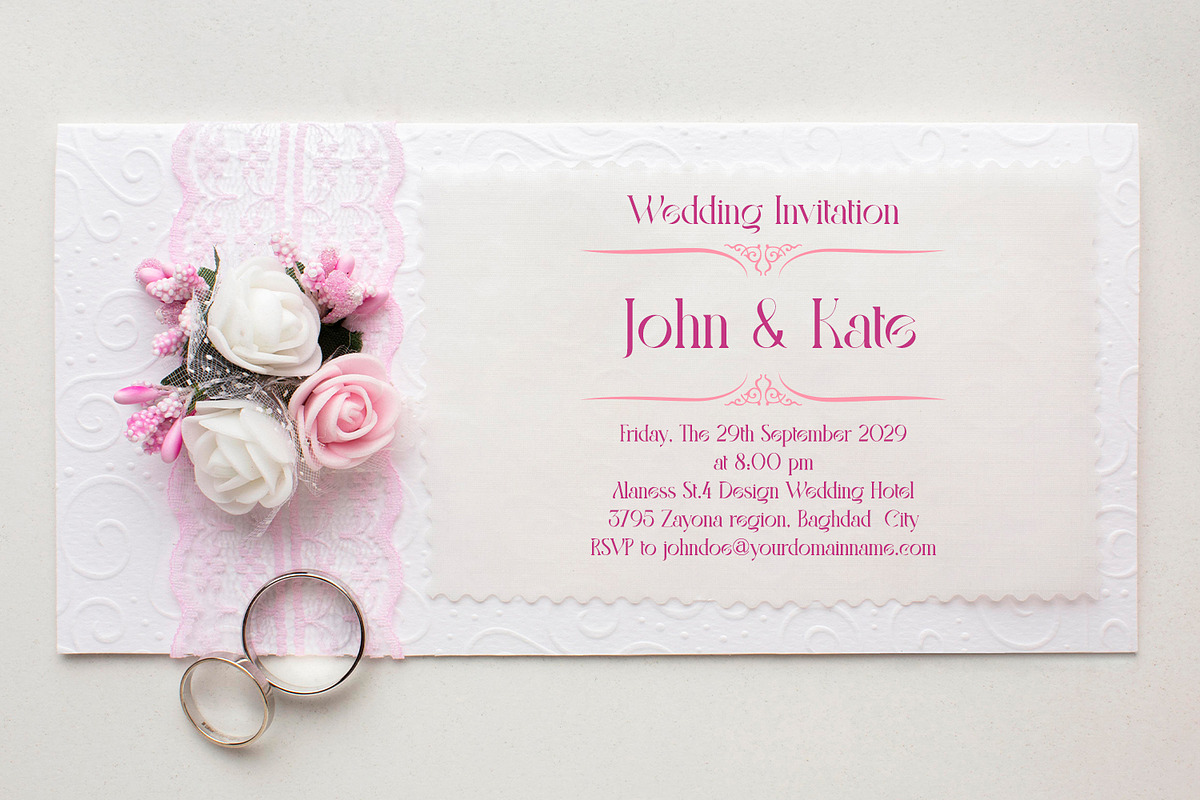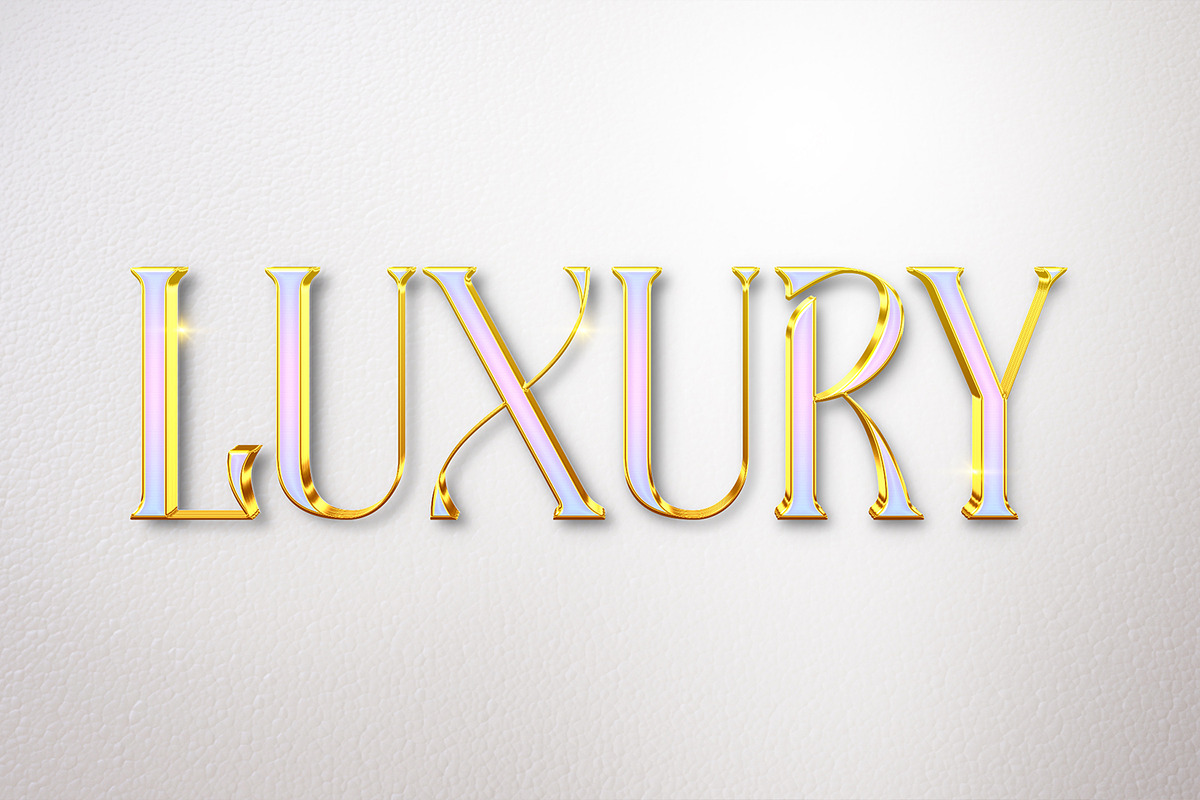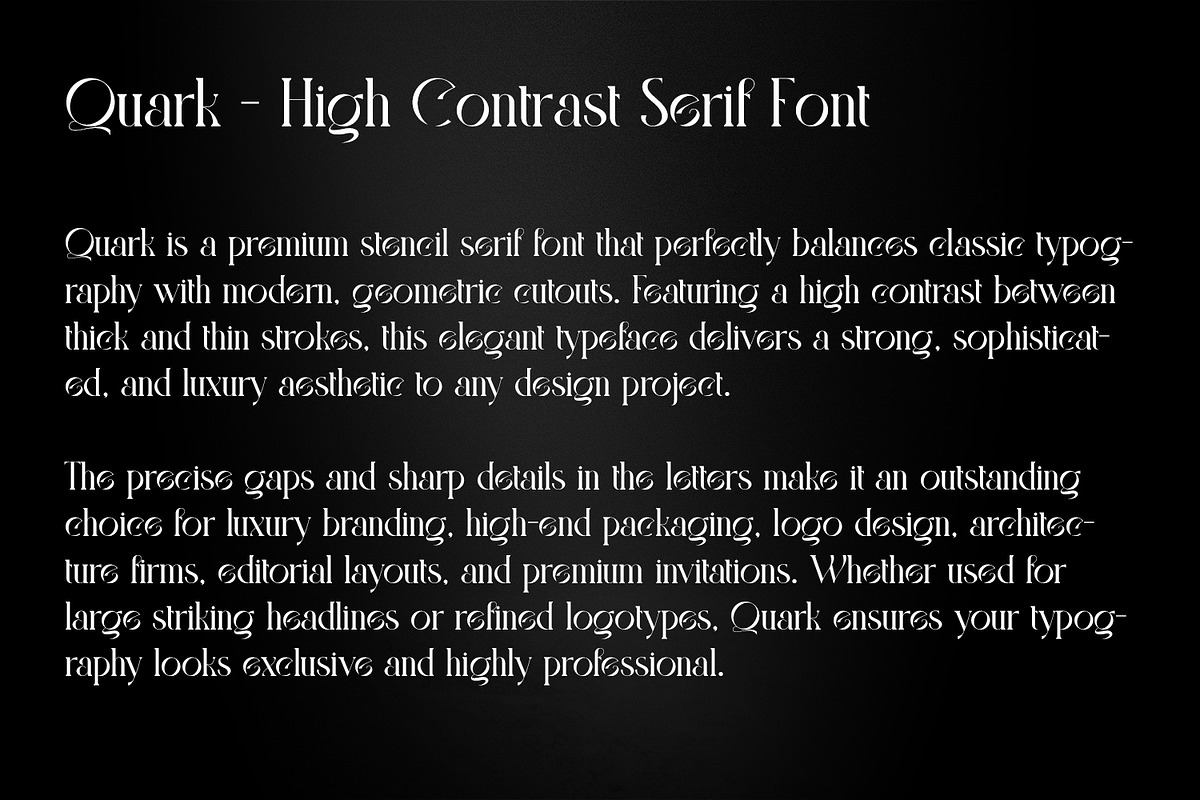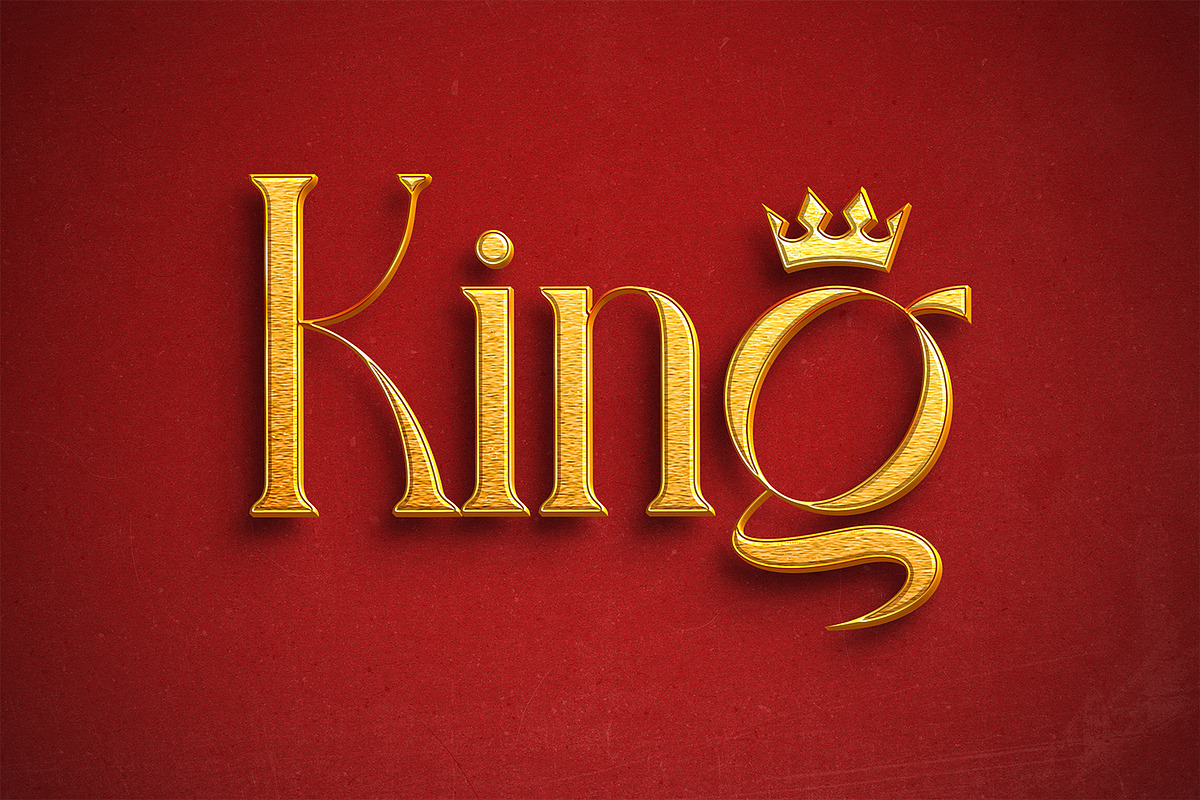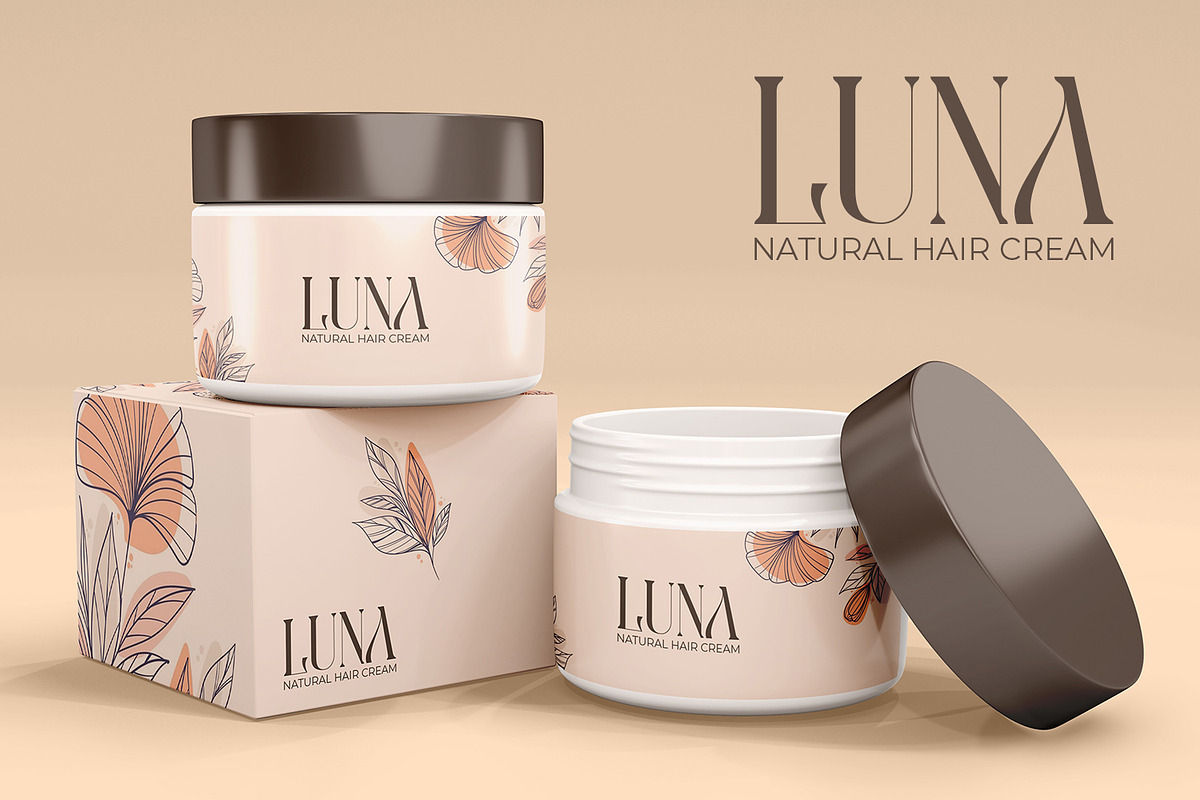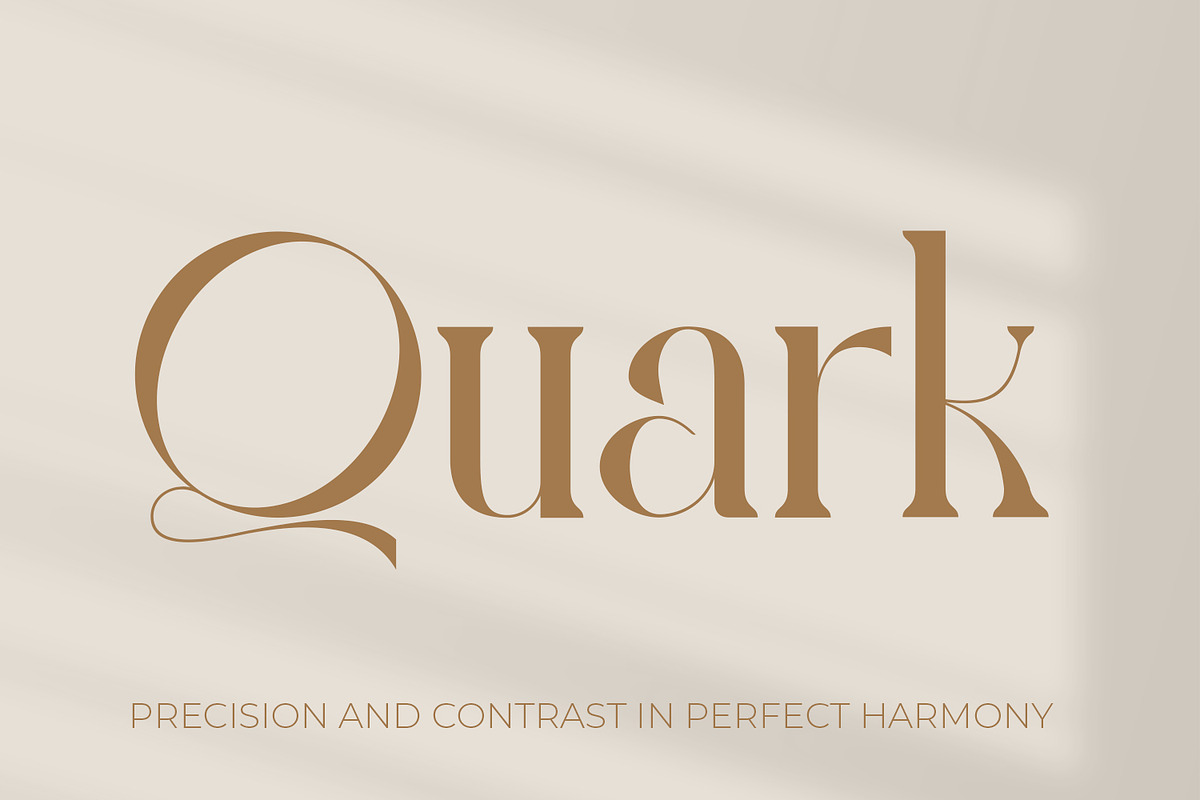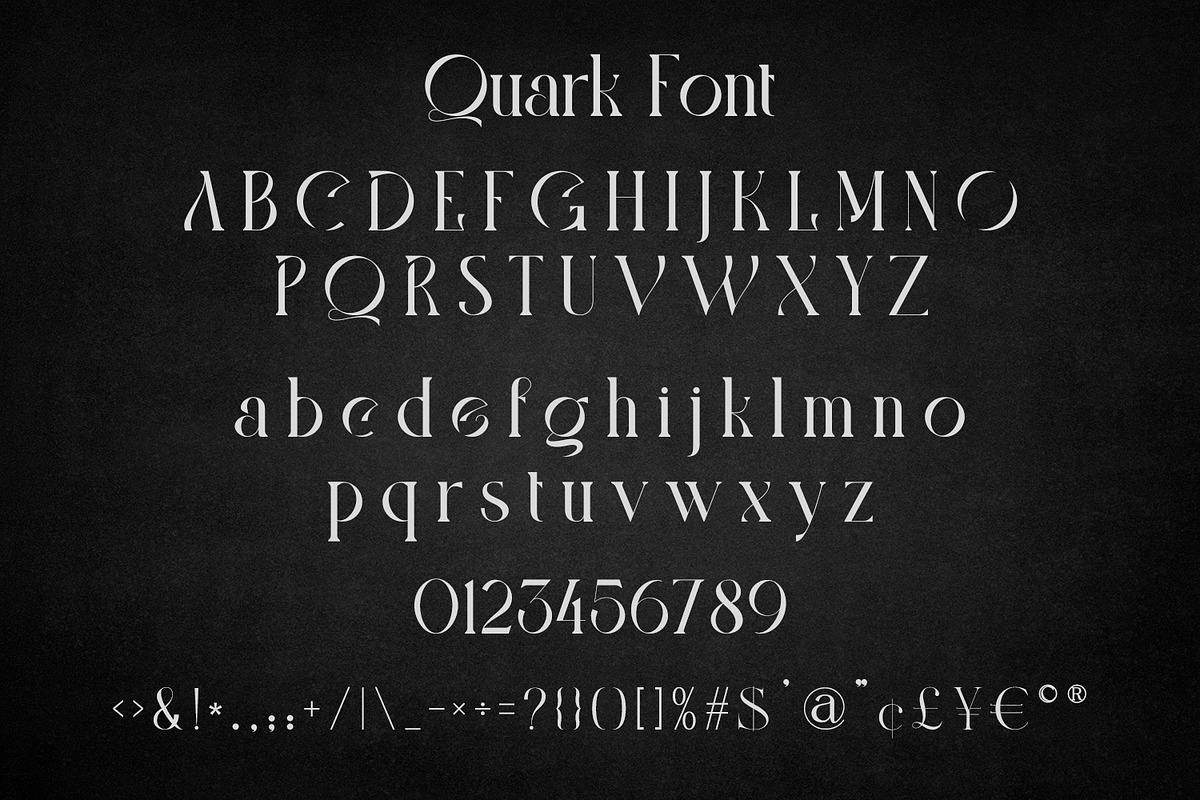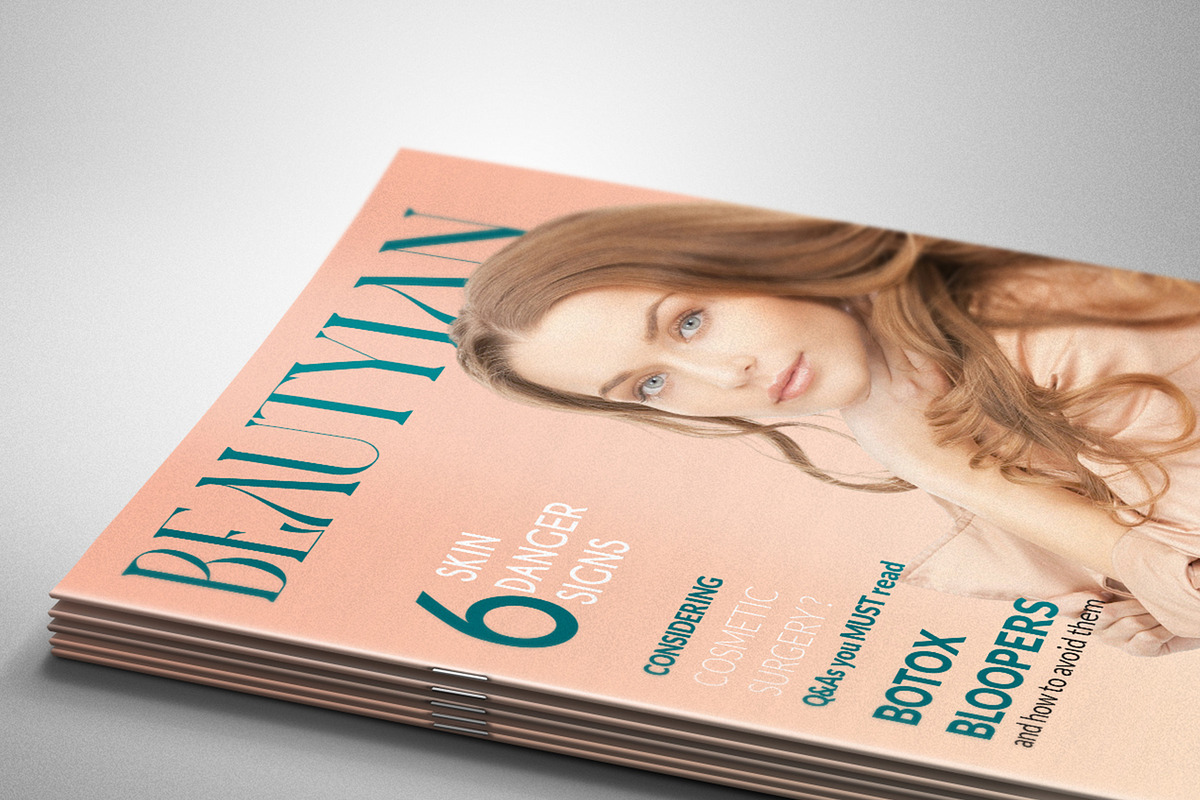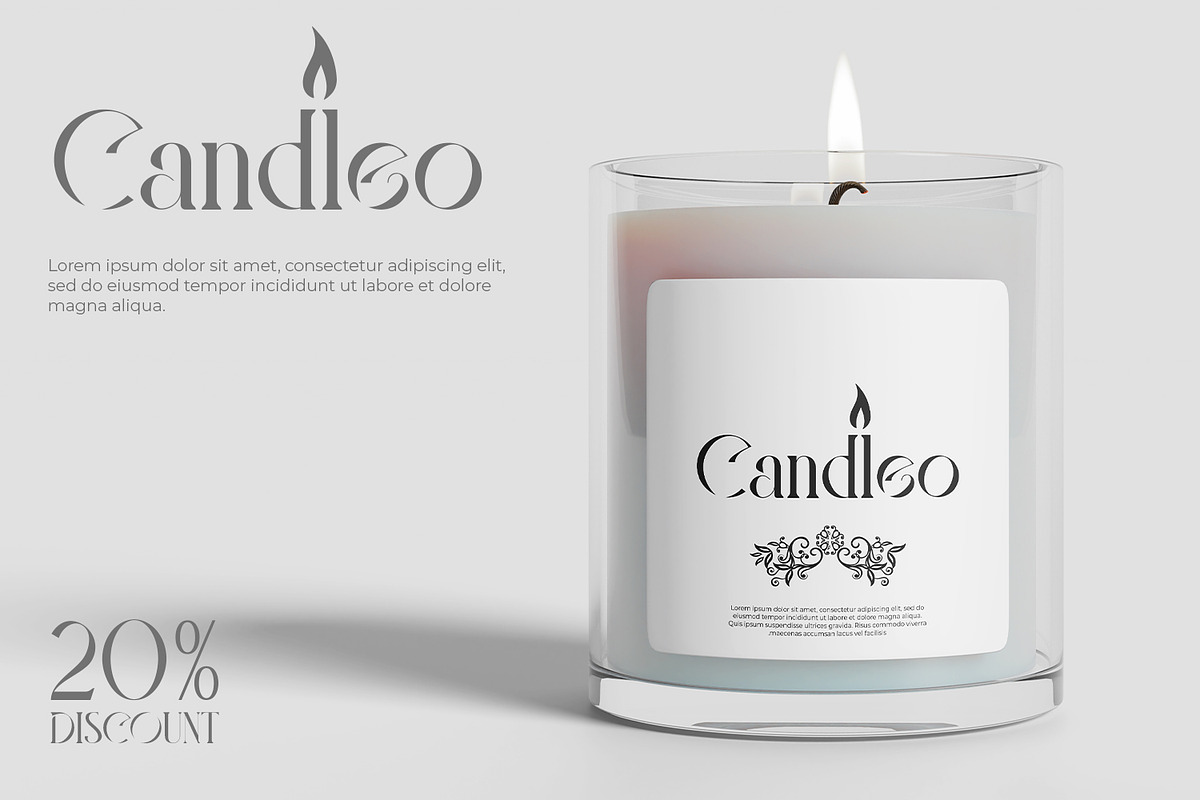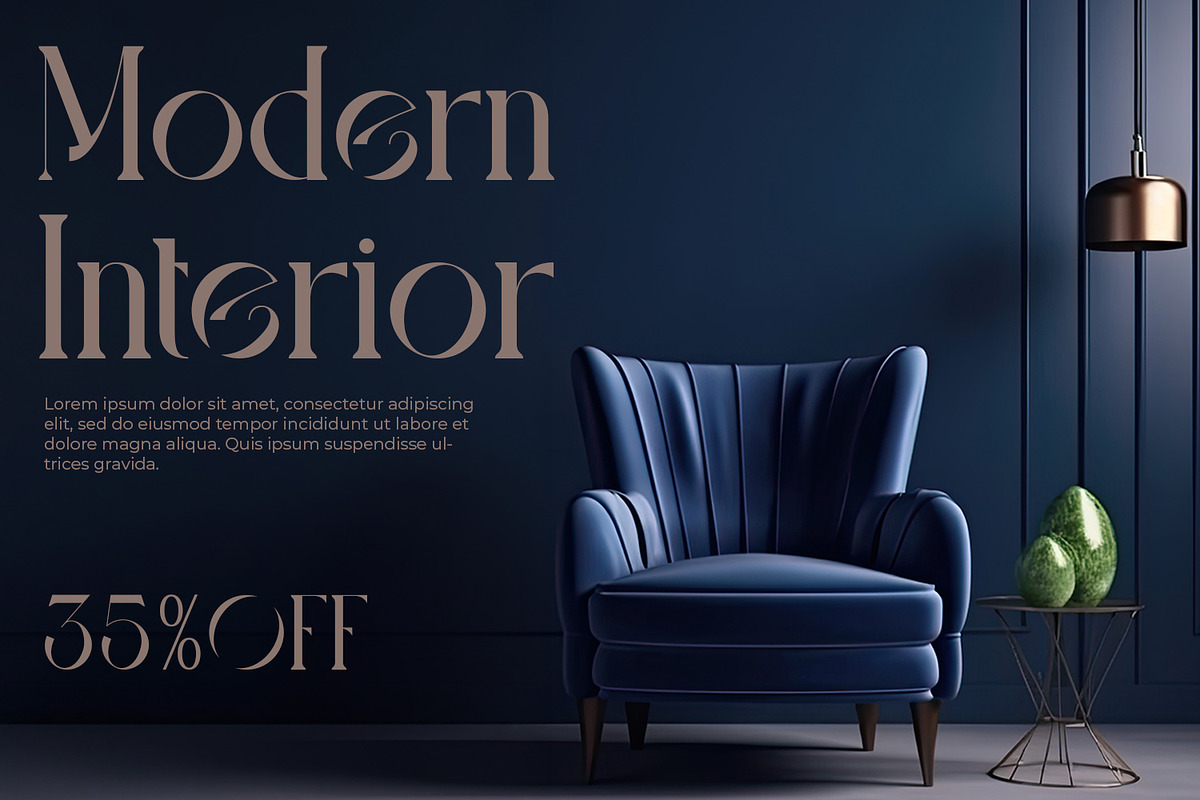
Quark - Elegant Modern High Contrast
Quark is a high-end luxury stencil serif font designed for the world of high fashion and couture branding. Featuring a sophisticated high-contrast design with sharp, geometric stencil cutouts, Quark is the ultimate choice for vogue-style magazines, fashion lookbooks, and luxury apparel logos.
This premium typeface masterfully blends timeless elegance with a modern, edgy twist. Whether you are designing for a boutique clothing line, cosmetic branding, or upscale editorial layouts, Quark delivers an expensive and polished aesthetic. Its refined letterforms and artistic gaps ensure your typography stands out in fashion advertising, social media campaigns, and premium product packaging. Elevate your creative vision with Quark—where classic serif beauty meets the runway’s boldness.